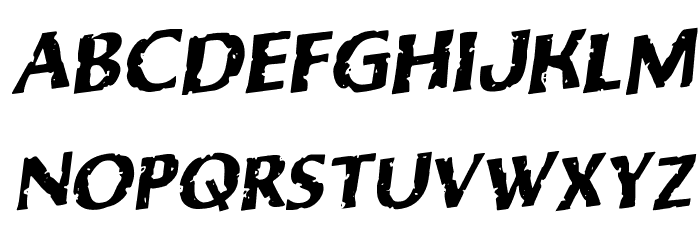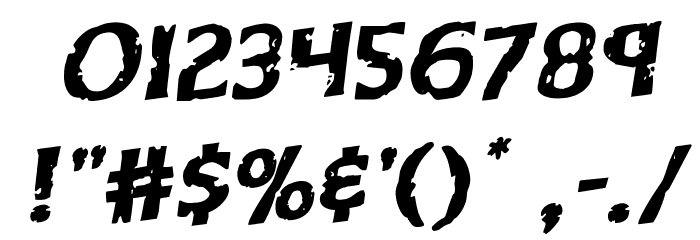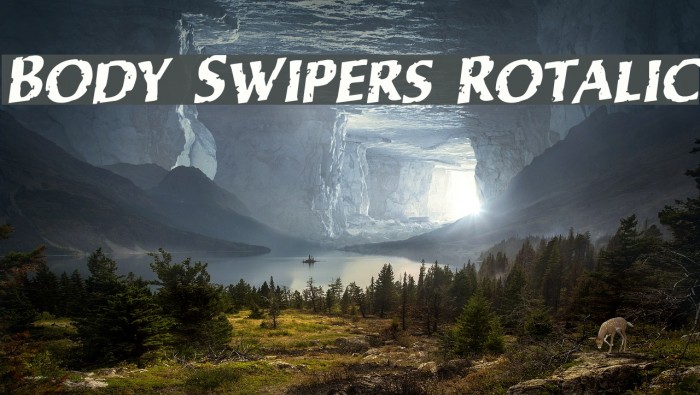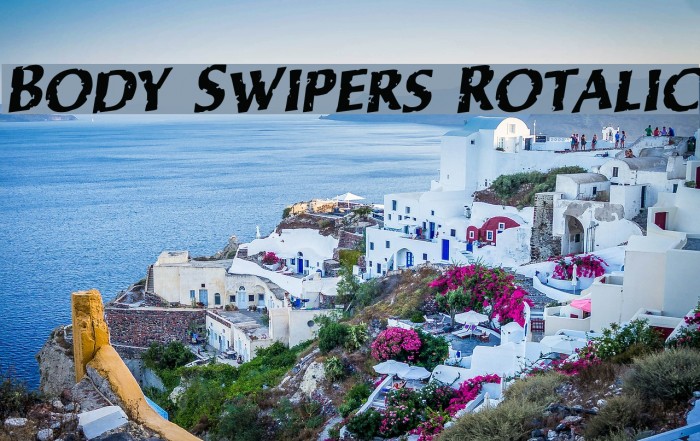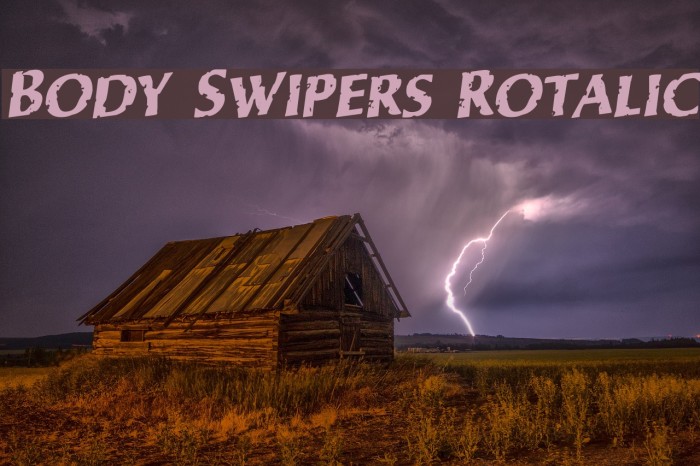
Body Swipers Rotalic Font
This font features a bold and dynamic style with a distressed, grunge-like texture. The characters are slanted, giving an italicized appearance, and exhibit a rough, uneven edge that adds a sense of movement and energy. The uppercase and lowercase letters maintain a consistent style, with a slightly condensed width that enhances the compact and impactful look. Numbers and special characters follow the same aesthetic, ensuring uniformity across all glyphs. The font's unique texture and slant make it ideal for projects that require a bold statement or an edgy, rebellious feel.
A bold, italicized font with a distressed, grunge texture.
- Proposed Projects: Ideal for music album covers, edgy posters, urban-themed designs, and branding that requires a bold, rebellious look.
- Overall Style: Modern, Grunge